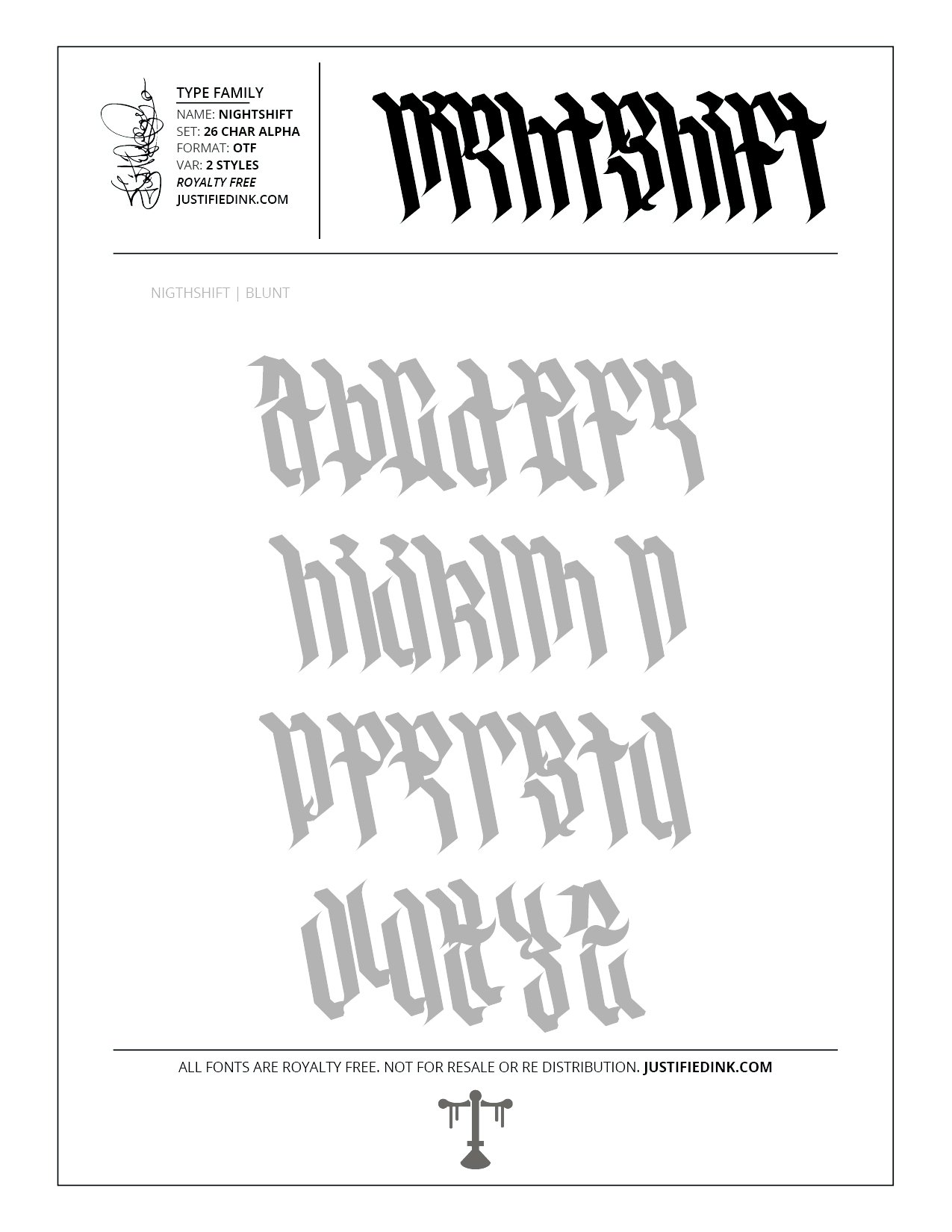
Nightshift (2 style) - Custom Font by Justified Ink
NAME: Nightshift
SET: 26 CHAR ALPHA
VAR: 2 STYLES
Solidarity for the nightshift working individuals. This font has a blunt and sharp style to complete the ends of each stroke. Choose your own adventure but either way keep pushing through till dawn.
This font is part of the collection by Justified Ink, called Blackletter II. After 15+ years creating, I began to focus on building personal libraries of my work. The Blackletter II Collection was created through writing page after page, and countless hours over a 2 year span of daily practice. Each font from this collection has been hand drawn, manually vectored, and custom set as a type-able font. It comes in a full set of 26 char alpha. Each font family has variations in styles and/or non-alpha chars.